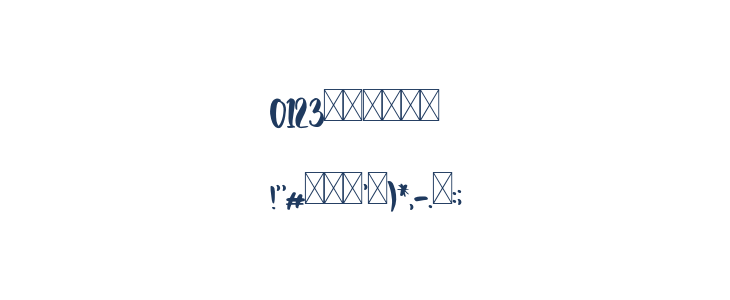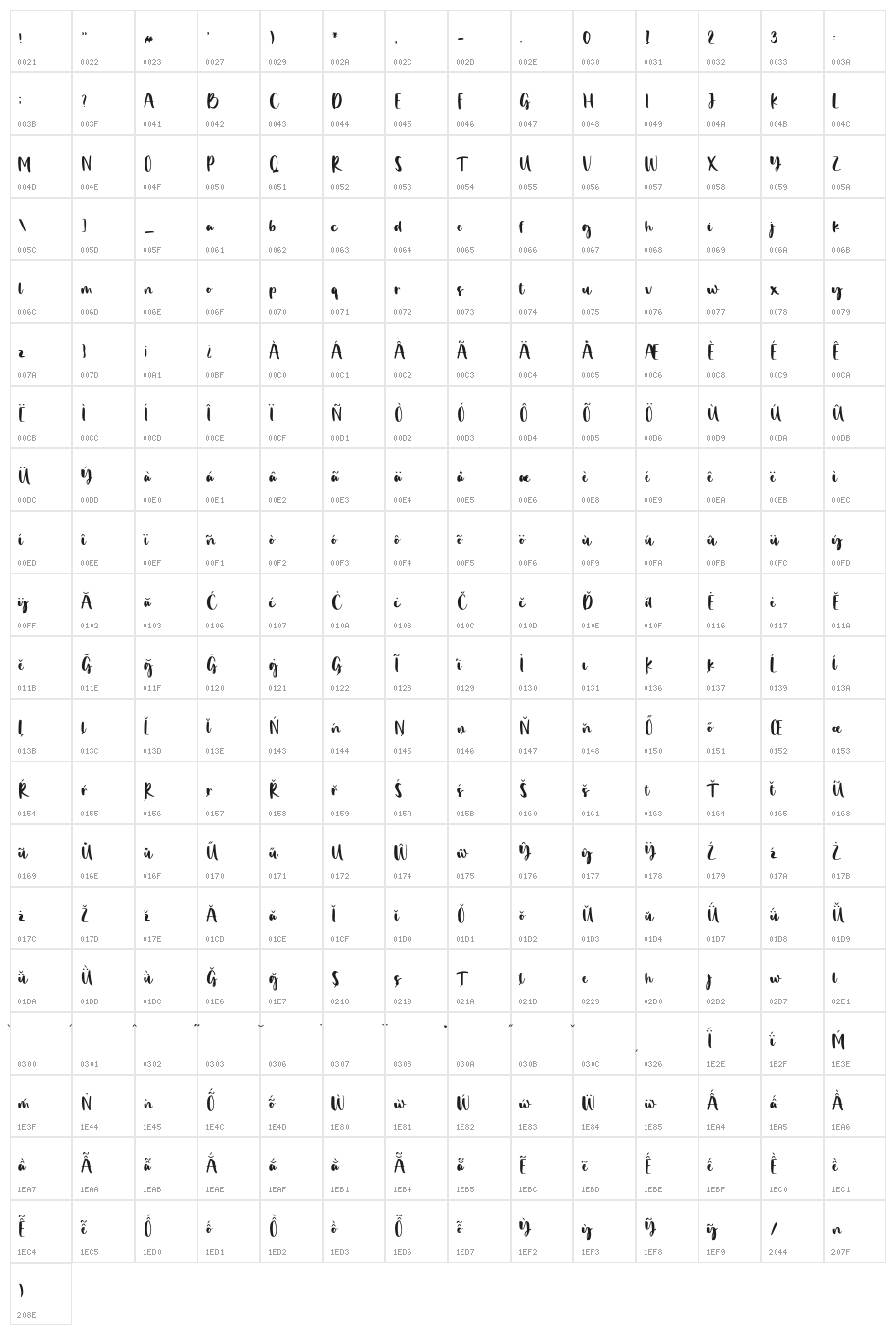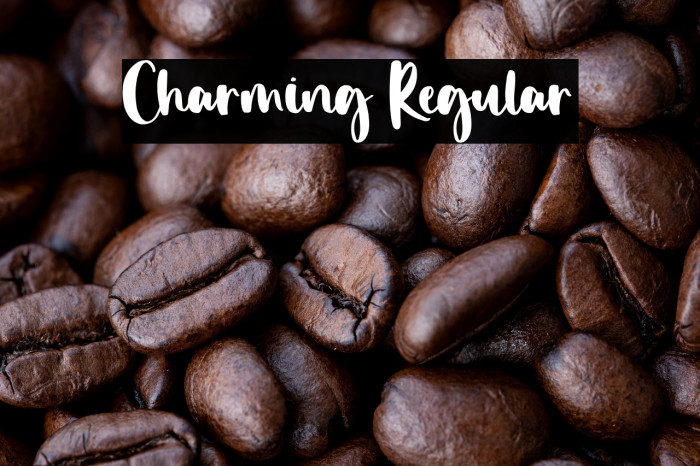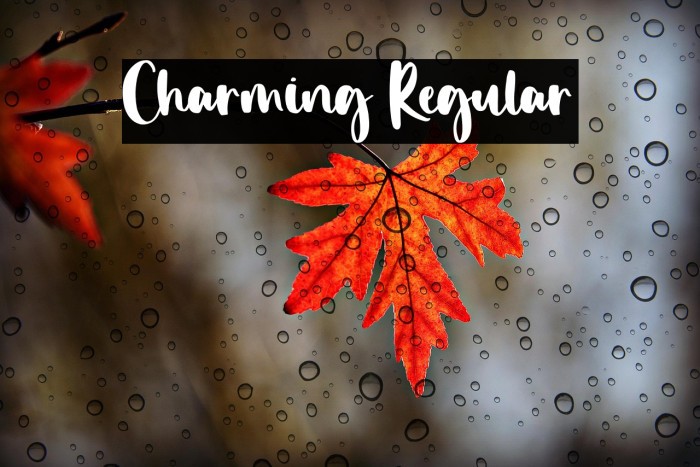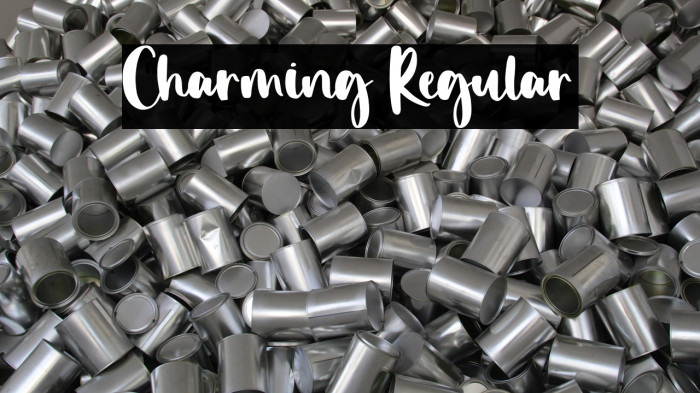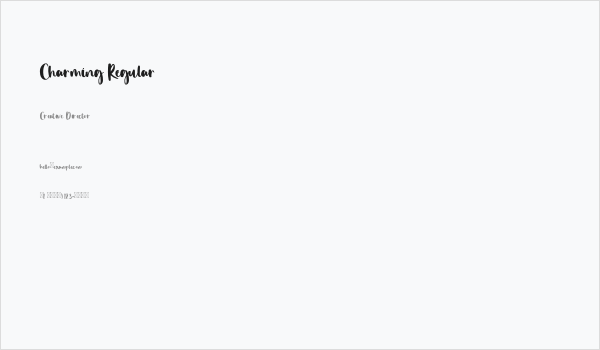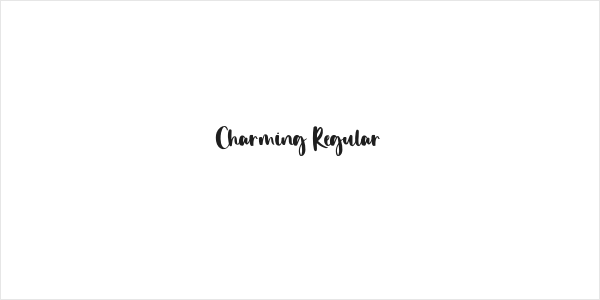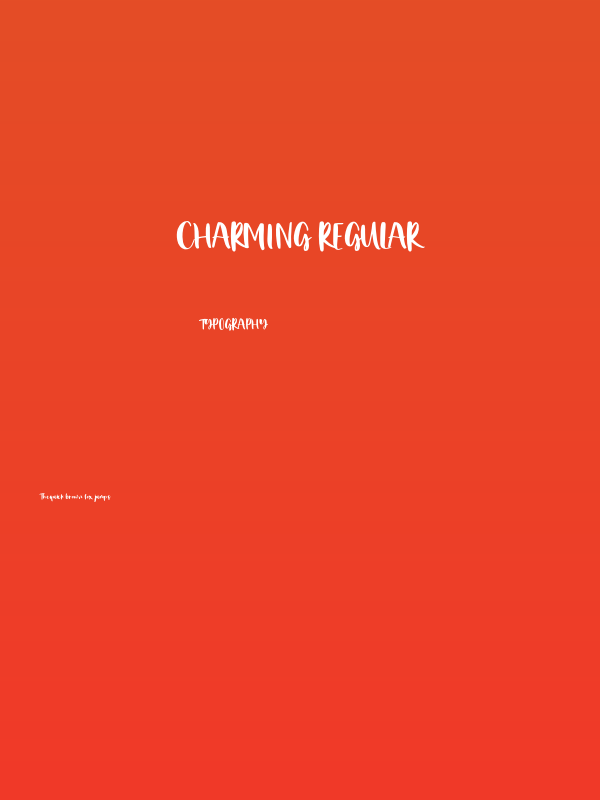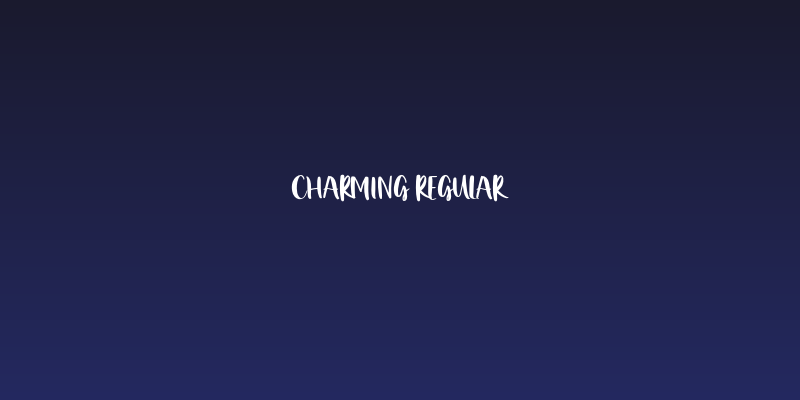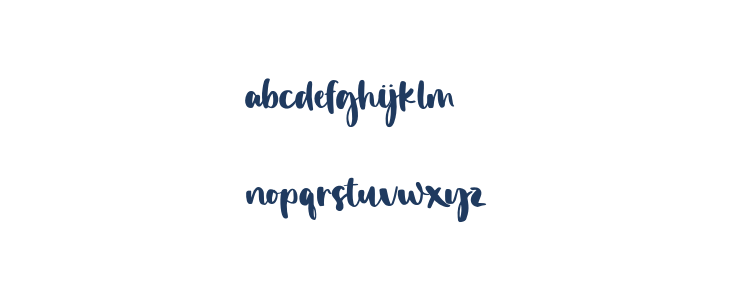
Charming Regular Font
Charming Regular Description
This font exudes a playful and casual vibe with its handwritten style, characterized by smooth, flowing strokes and a slightly irregular baseline that adds to its charm. The letters are bold and rounded, giving a friendly and approachable feel. The uppercase and lowercase letters maintain a consistent style, with the uppercase being slightly more structured while the lowercase retains a more relaxed appearance. The numbers follow the same playful aesthetic, making them suitable for informal contexts. The special characters are designed to match the overall style, ensuring a cohesive look across all elements.
| Proposed Projects | Ideal for greeting cards, invitations, personal branding, and social media graphics. |